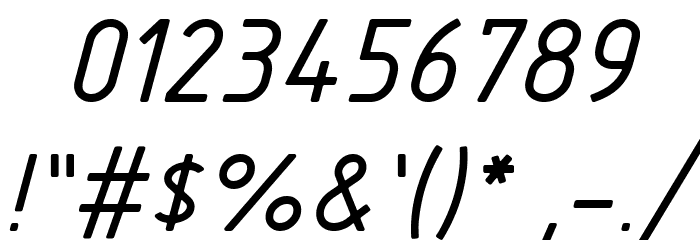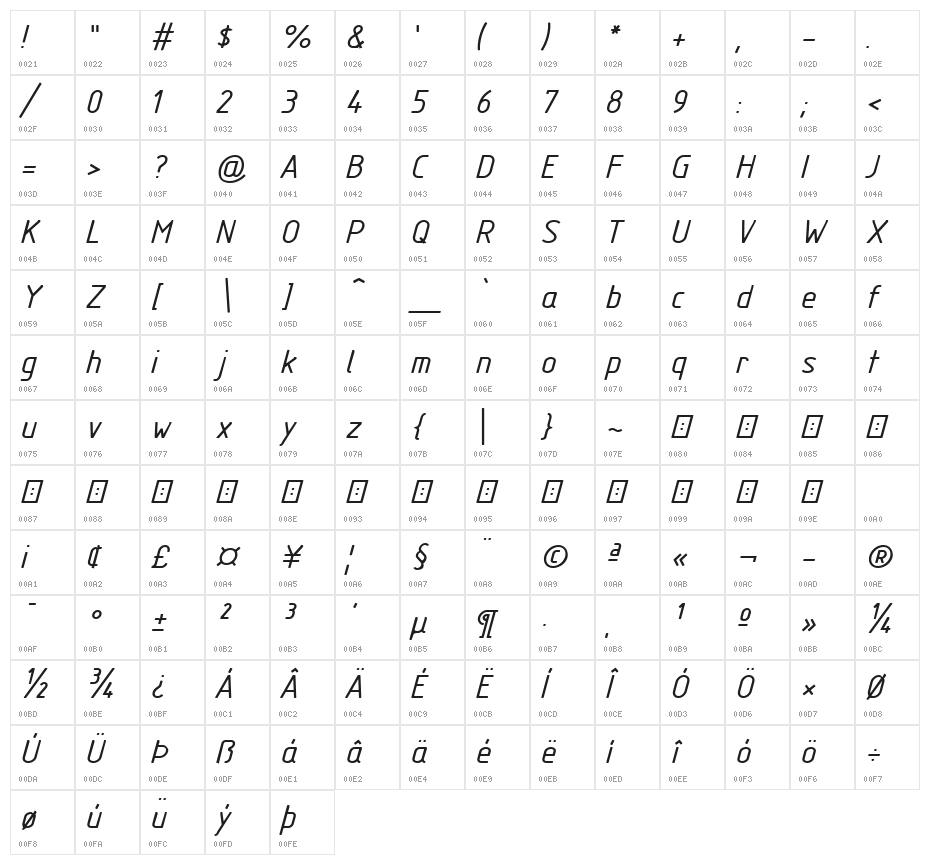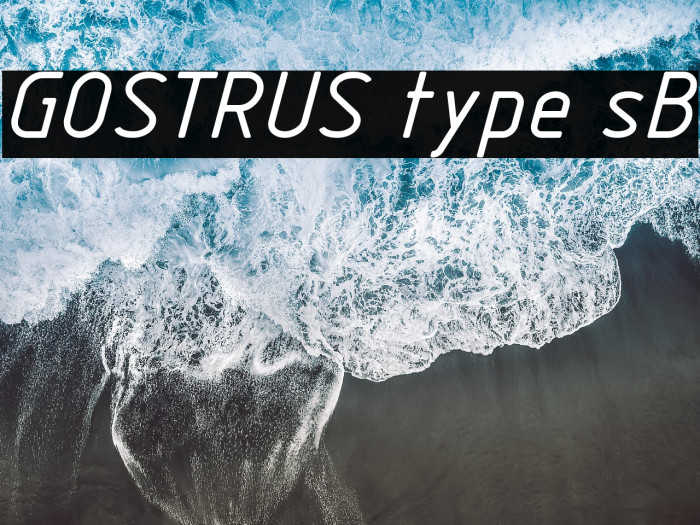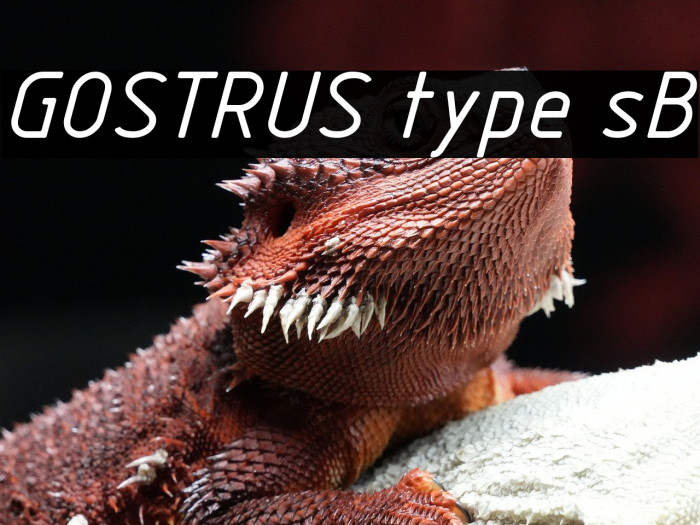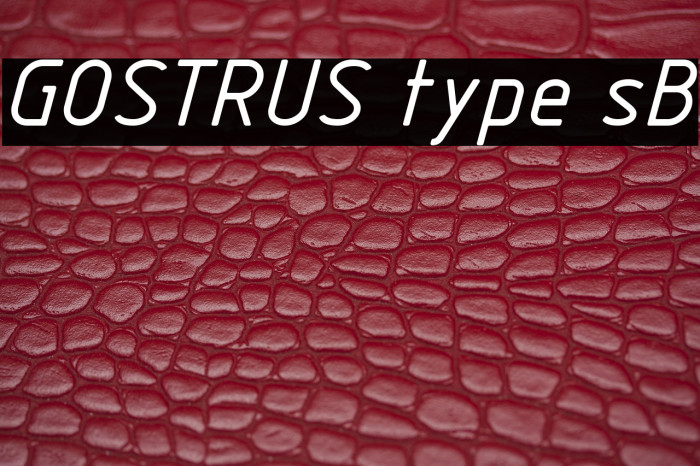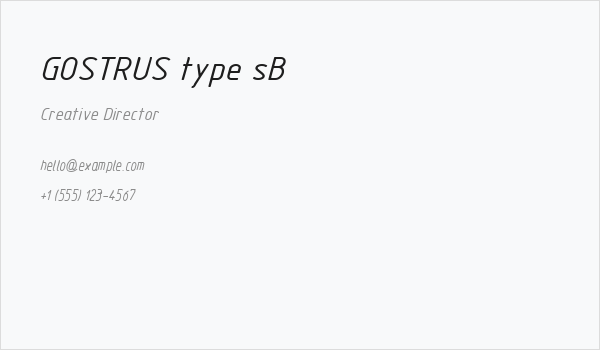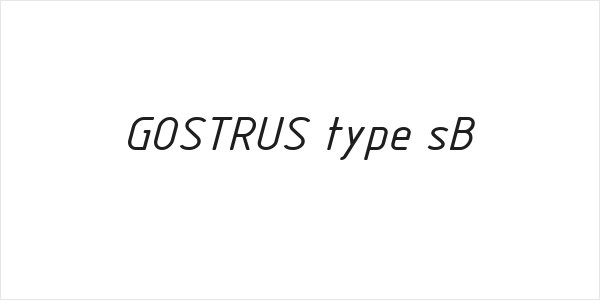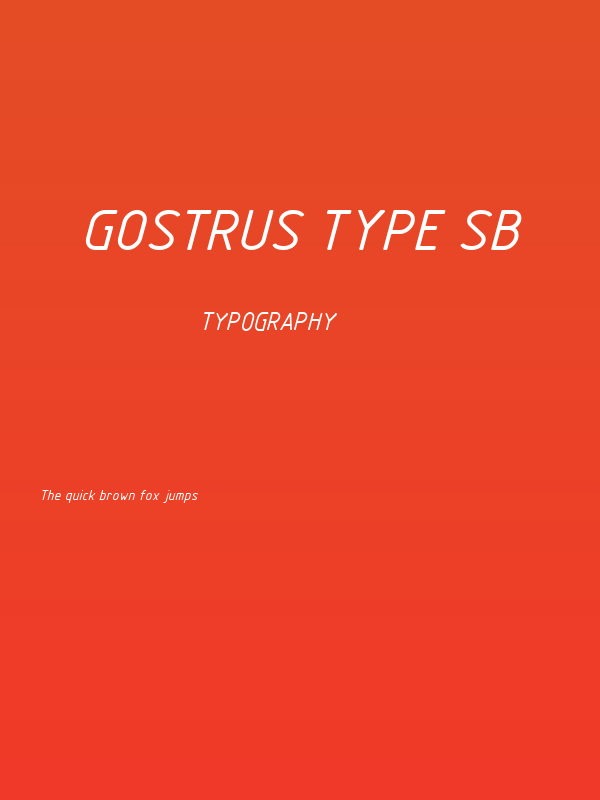
GOSTRUS type sB Font
GOSTRUS type sB Description
This font features a clean, modern design with a slight slant, giving it a dynamic and forward-moving appearance. The characters are sans-serif, contributing to a sleek and minimalist aesthetic. The uppercase and lowercase letters maintain a consistent style, with rounded edges that soften the overall look. The numerals are clear and easy to read, matching the style of the alphabet. Special characters are well-integrated, maintaining the font's cohesive design. The font's simplicity and readability make it versatile for various applications.
| Proposed Projects | Ideal for branding, advertising, digital interfaces, and editorial design. |